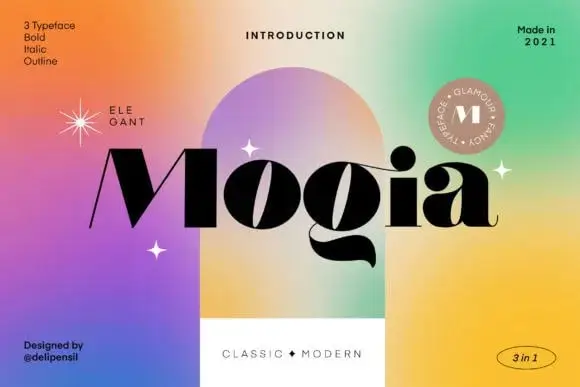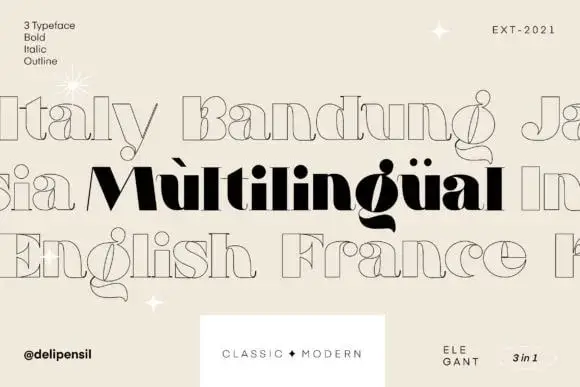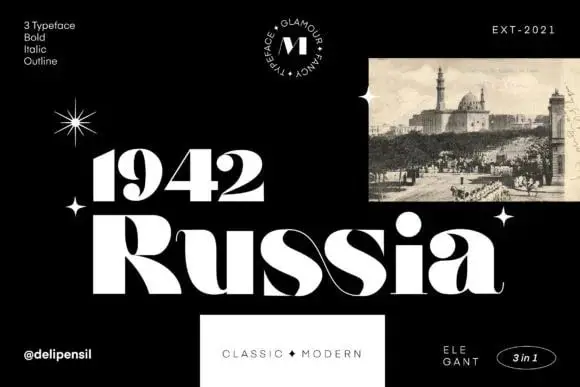
Mogia-Modern Classic Typeface (C) Delip Nugraha
Mogia is a modern classic typeface designed by Delip Nugraha, perfect for a variety of creative projects. This font offers a unique blend of contemporary and traditional styles, making it suitable for both digital and print applications.
• Stylish and elegant design
This typeface is ideal for branding, logos, web design, and print materials. Use Mogia to add a touch of sophistication to your projects.